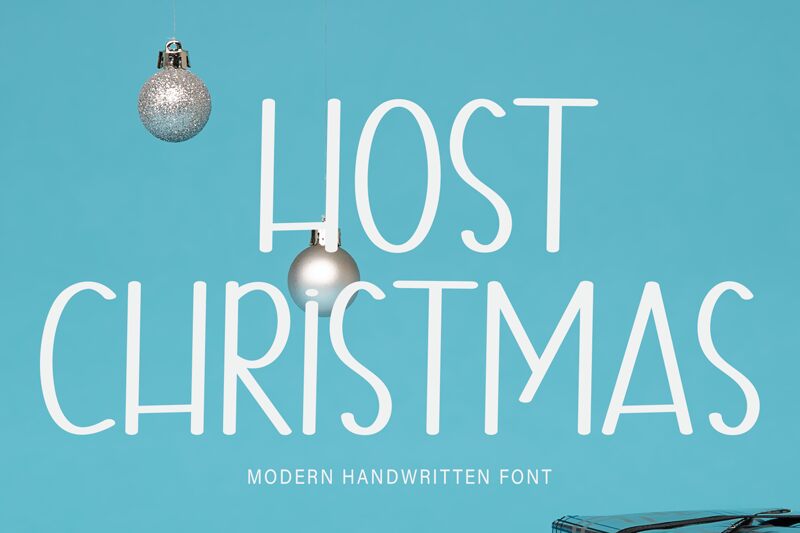
Host Christmas
Host Christmas, designed by Etik Fatimah, exudes the warmth and joy of the yuletide season through its handwritten style. With a semi-light weight that gives it an airy and approachable look, this font dances between casual elegance and festive charm. Each character is crafted with a personal touch, inviting a sense of homemade delight to any project.
The whimsical curves and slight irregularities in Host Christmas create an authentic handcrafted feel, making it perfect for holiday cards, event invitations, or any design endeavor that calls for a personal and inviting aesthetic. Its legible yet playful appearance ensures versatility across various creative mediums while maintaining its distinctive character.
Envision Host Christmas as the go-to choice for projects that aim to instill a sense of wonder, nostalgia, or celebration—its unique characteristics are poised to captivate audiences in both digital landscapes and printed keepsakes.